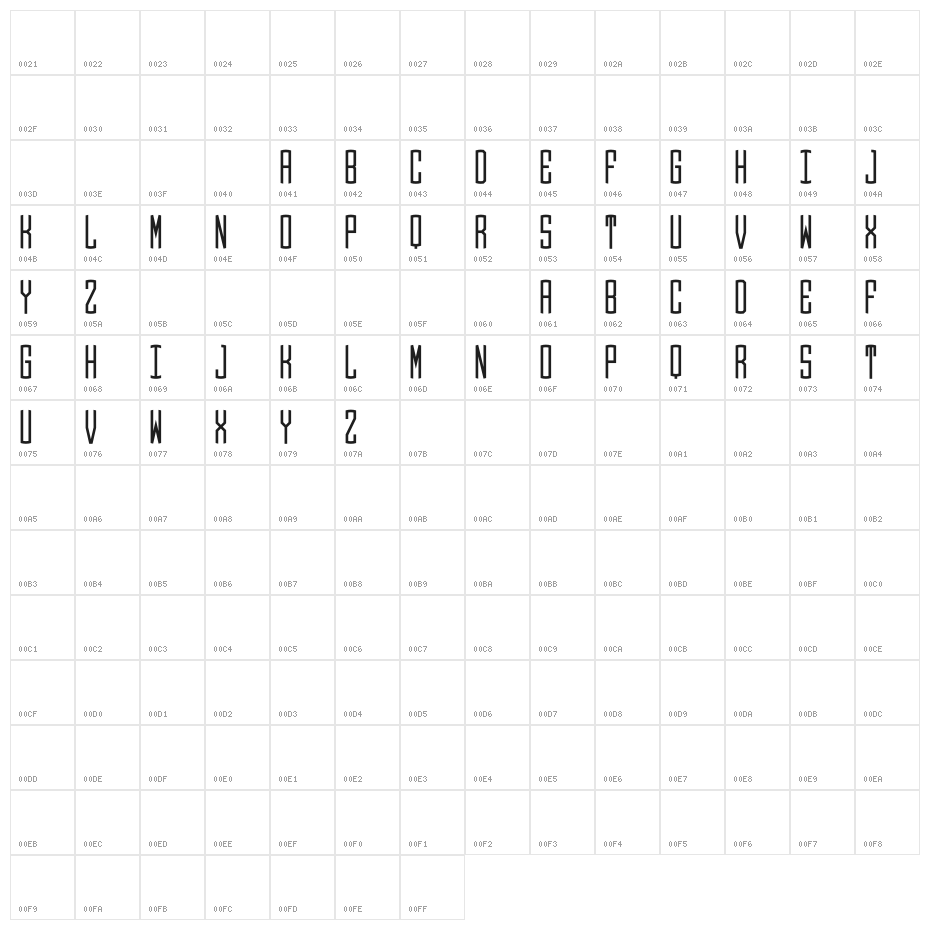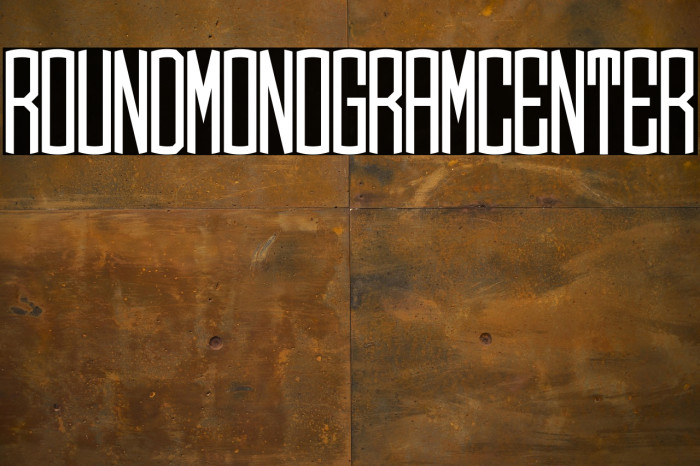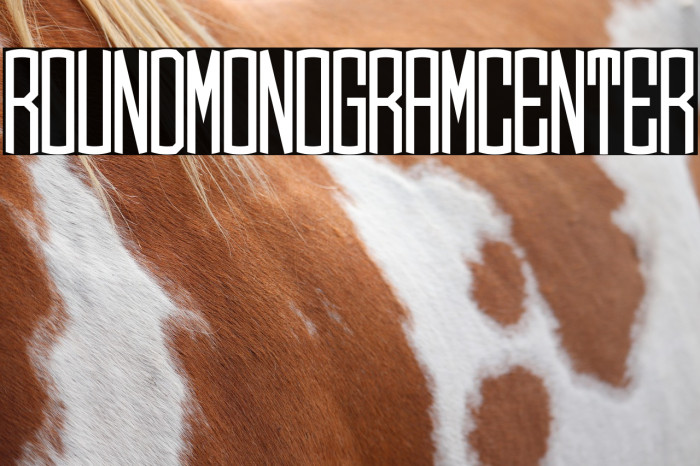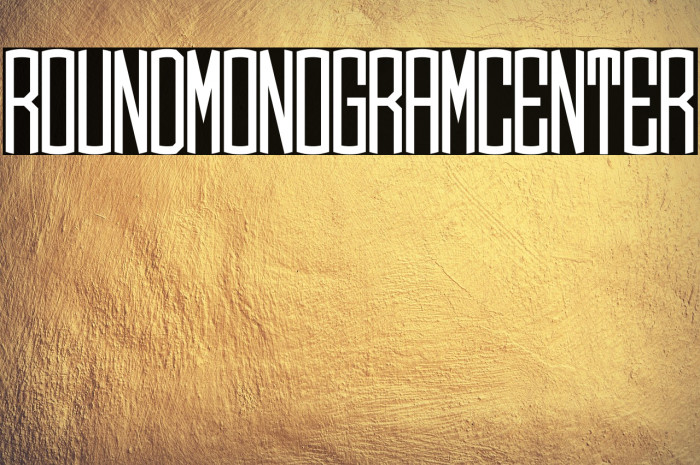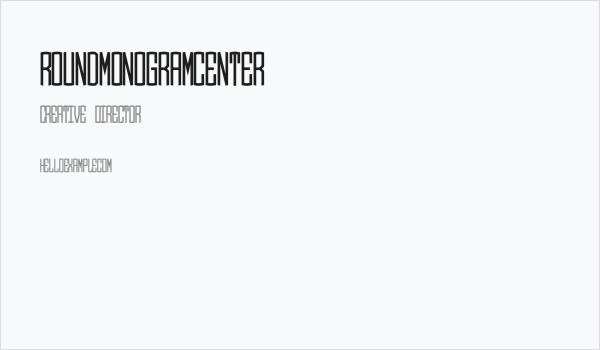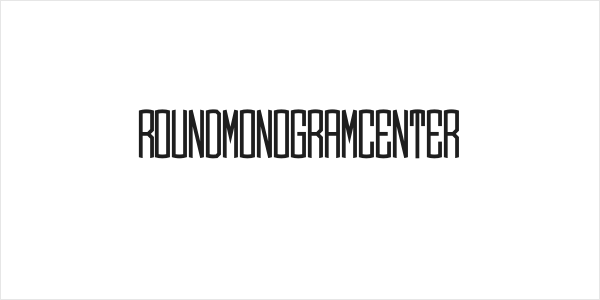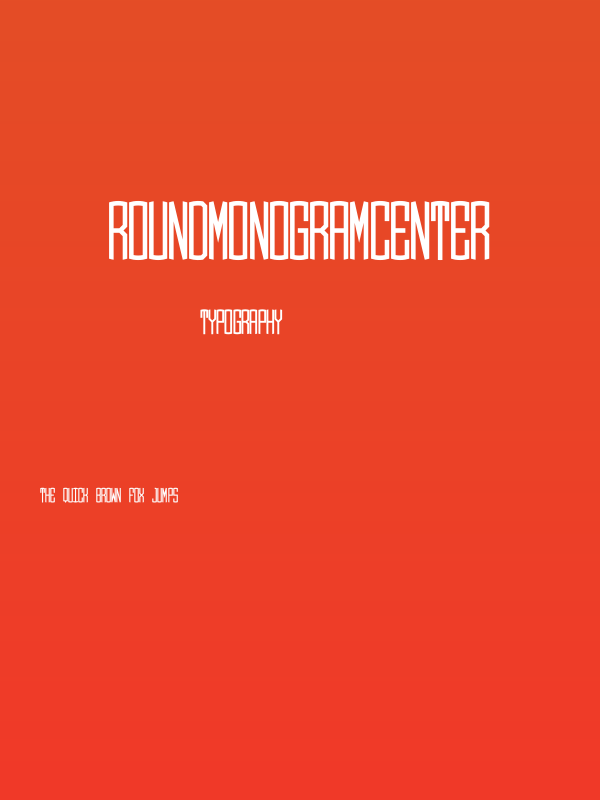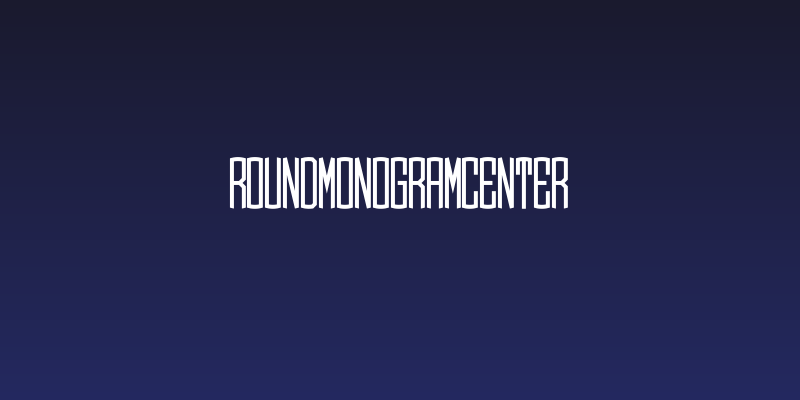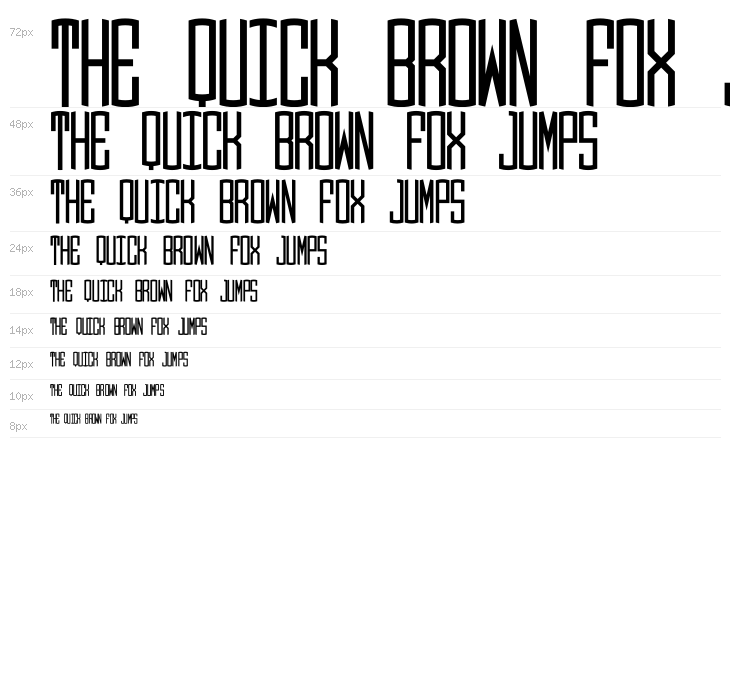
Round_Monogram_Center Font
Round_Monogram_Center Description
This font features a unique, elongated design with a tall and narrow structure, creating a striking visual impact. The characters are uniformly aligned with consistent vertical strokes, giving it a modern and geometric appearance. The uppercase letters are particularly prominent, with sharp angles and clean lines that enhance its boldness. The font's overall aesthetic is both contemporary and sophisticated, making it suitable for various design applications. Its distinct style is ideal for projects that require a strong visual presence.
| Proposed Projects | Ideal for branding, logos, posters, and headlines that require a bold and modern look. |